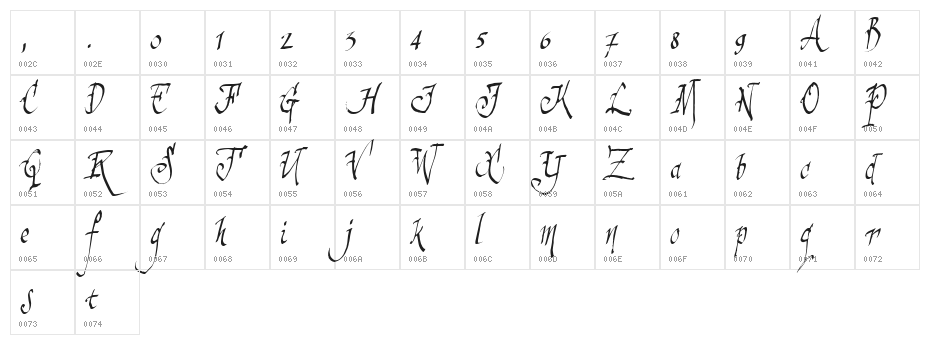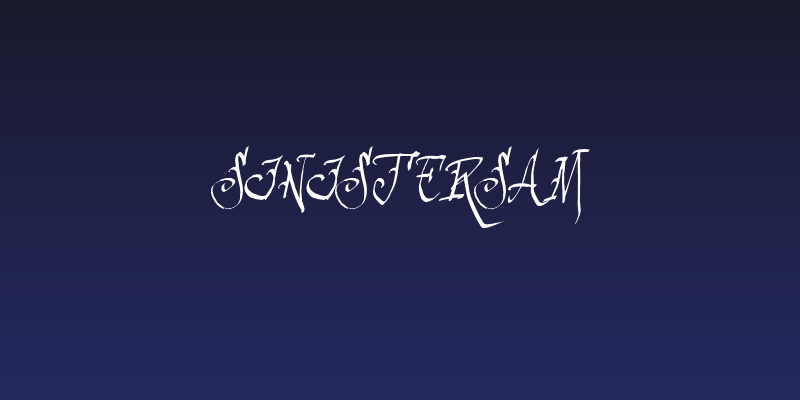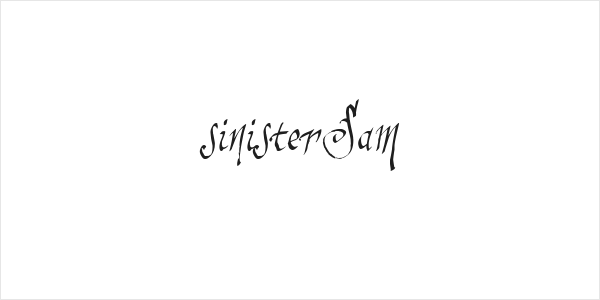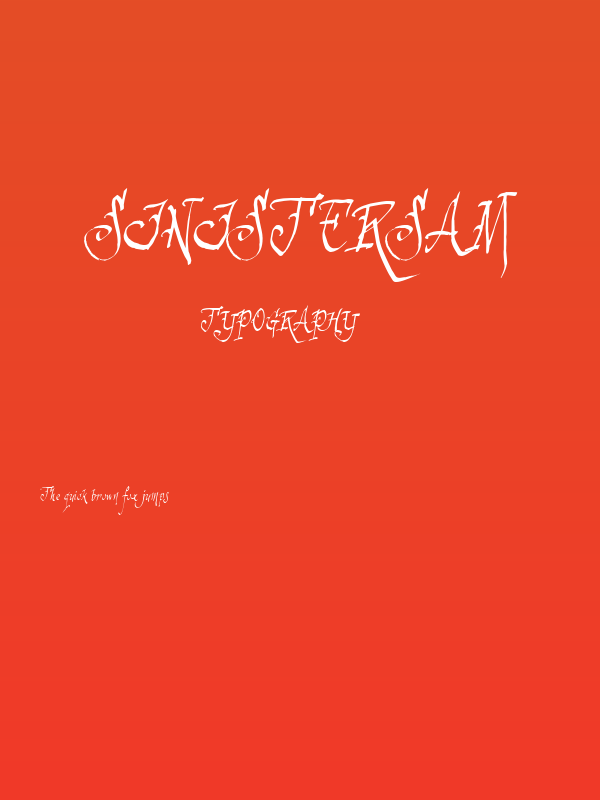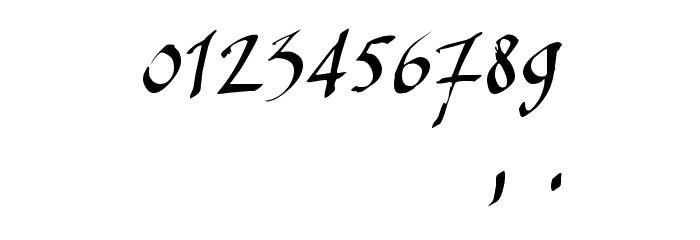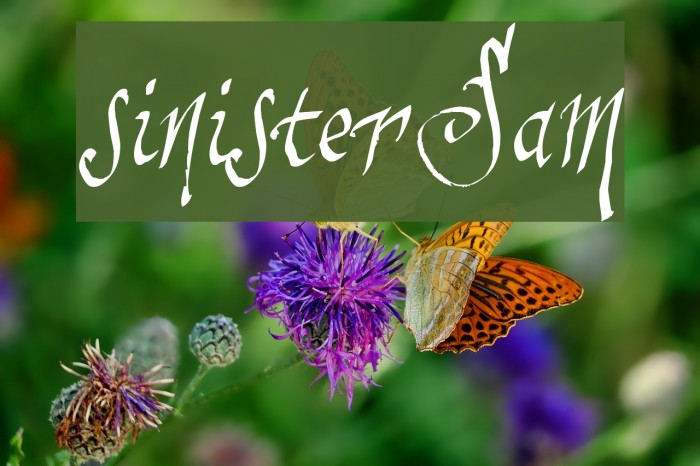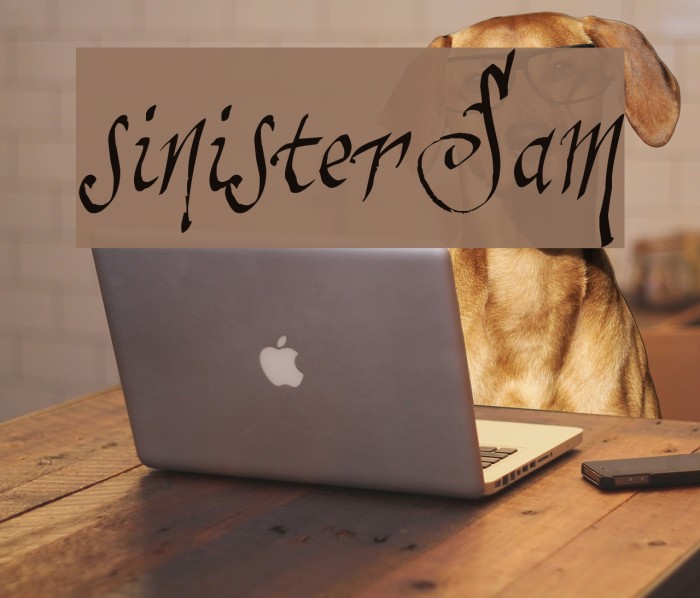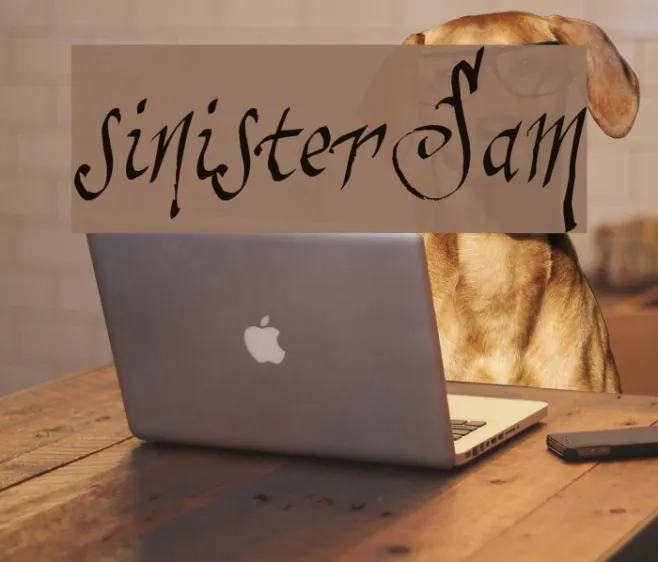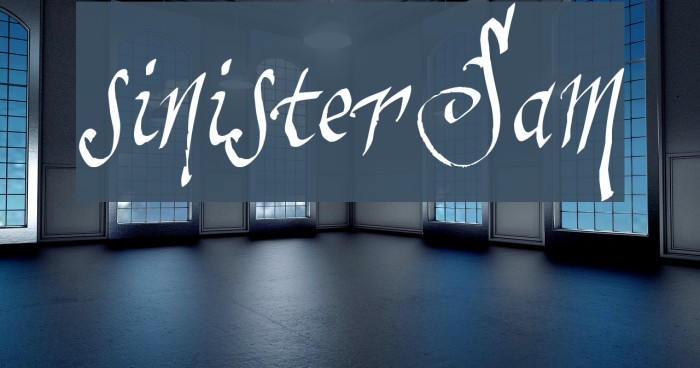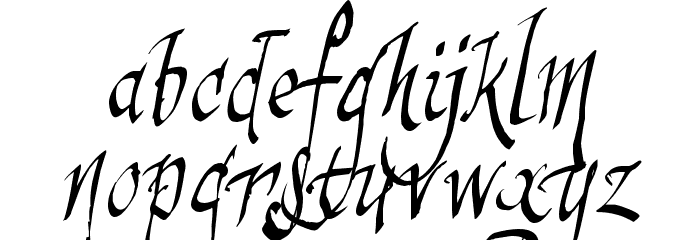
sinisterSam Font
sinisterSam Description
This font exudes a dark, mysterious aura with its sharp, angular strokes and uneven baseline. The characters are crafted with a calligraphic flair, featuring dramatic flourishes and pointed serifs that evoke a sense of gothic elegance. The uppercase letters are tall and imposing, while the lowercase letters maintain a consistent style with elongated ascenders and descenders. The numerals are distinct and maintain the same stylistic elements, ensuring cohesion across the typeface. The special characters are uniquely designed, adding to the font's overall sinister and dramatic appeal.
| Overall Style | Gothic, Dramatic |
| Use Case | Headlines, Logos, Decorative |
| Proposed Projects | Ideal for horror-themed posters, gothic invitations, or branding for edgy, alternative products. |